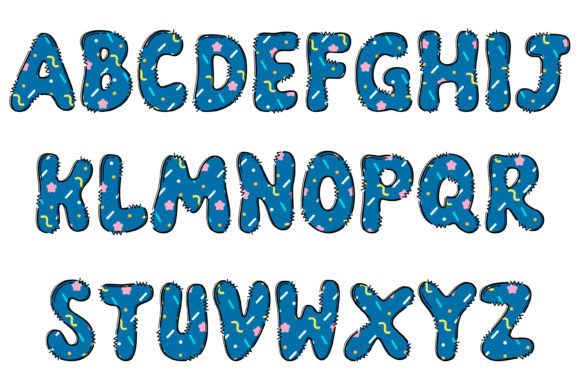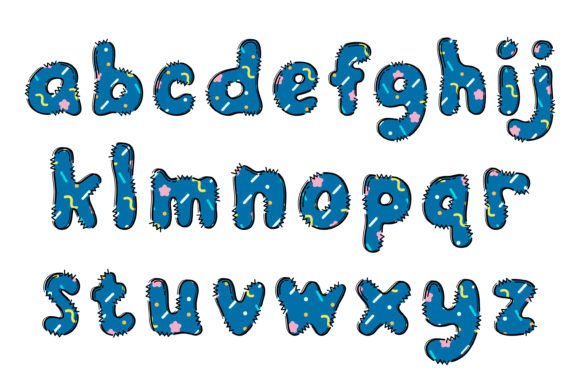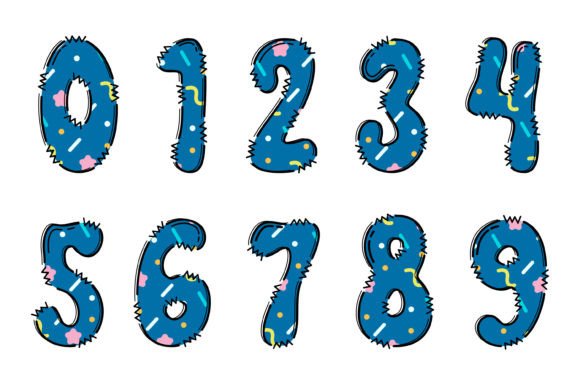
Cool Shapes Font: Elevate Your Designs with Playful and Artistic Flair
Are you looking for a font that can add a touch of playfulness and artistic flair to your designs? Look no further than the Cool Shapes Font! This unique and versatile font is perfect for designers and crafters who want to create engaging and visually appealing projects. In this article, we’ll explore the features and benefits of the Cool Shapes Font, and how you can use it to take your designs to the next level.
What is Cool Shapes Font?
Uses of Cool Shapes Font
Cool Shapes Font is a versatile font that can be used in a variety of design projects. Here are some ideas to get you started:
• Children’s books: The whimsical and colorful design of Cool Shapes Font makes it perfect for children’s books. The font is easy to read and creates an engaging reading experience for young audiences.
• Posters: Add a playful touch to your posters with Cool Shapes Font. The font is perfect for creating eye-catching headlines and titles.
• Invitations: Make your invitations stand out with Cool Shapes Font. The font is perfect for creating fun and playful invitations for parties, birthdays, and other celebrations.
• Greeting cards: Add a personal touch to your greeting cards with Cool Shapes Font. The font is perfect for creating unique and heartfelt messages.
Benefits of Cool Shapes Font
Cool Shapes Font offers a range of benefits for designers and crafters. Here are some of the advantages of using this font:
• Unique design: Cool Shapes Font features a unique and playful design that sets it apart from other fonts.
• Versatility: The font can be used in a variety of design projects, from children’s books to posters and invitations.
• Easy to read: Despite its playful design, Cool Shapes Font is easy to read and creates an engaging reading experience.
Tips for Using Cool Shapes Font
Here are some tips for using Cool Shapes Font in your designs:
• Use it sparingly: While Cool Shapes Font is playful and fun, it can be overwhelming if used too much. Use it sparingly to add a touch of whimsy to your designs.
• Pair it with other fonts: Cool Shapes Font pairs well with other fonts, such as sans-serif fonts. Experiment with different font combinations to create a unique look.
• Experiment with colors: The color version of Cool Shapes Font offers a range of possibilities for adding color to your designs. Experiment with different colors and combinations to create a unique look.
Cool Shapes Font is a fun and creative font that’s perfect for designers and crafters who want to add a touch of playfulness and artistic flair to their designs. With its unique design, versatility, and ease of use, Cool Shapes Font is a great addition to any design project. Whether you’re creating children’s books, posters, invitations, or greeting cards, Cool Shapes Font is sure to elevate your designs and make them stand out.